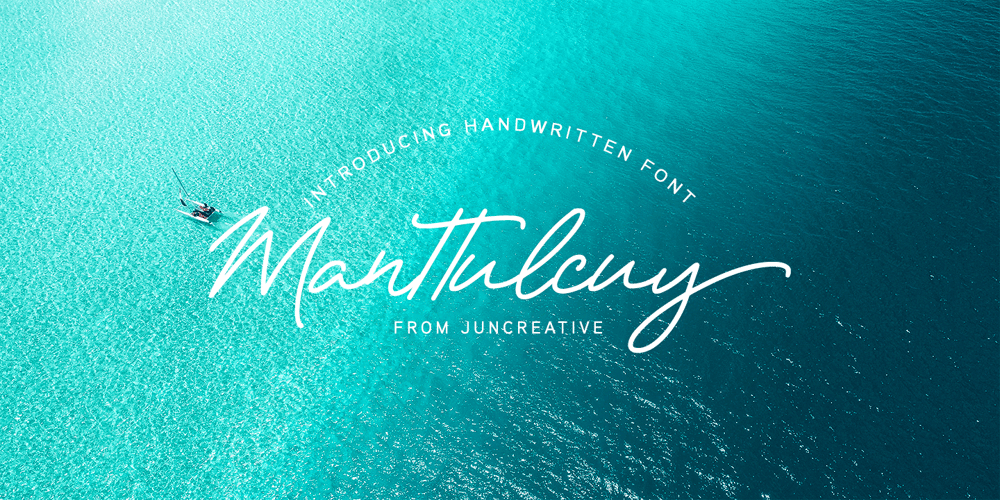
Manttulcuy Signature
Manttulcuy Signature font
Manttulcuy Signature Font Family was designed by Muhamad Junaid and published by Juncreative. Manttulcuy Signature contains 1 styles and family package options. Manttulcuy Signature is a handwritten signature script with a natural & stylish flow, elegant and smooth. Manttulcuy is perfect for branding projects, logos, wedding designs, social media posts, advertisements, product packaging, product designs, labels, photography, watermark, invitations, stationery and any projects that needs a handwriting touch.